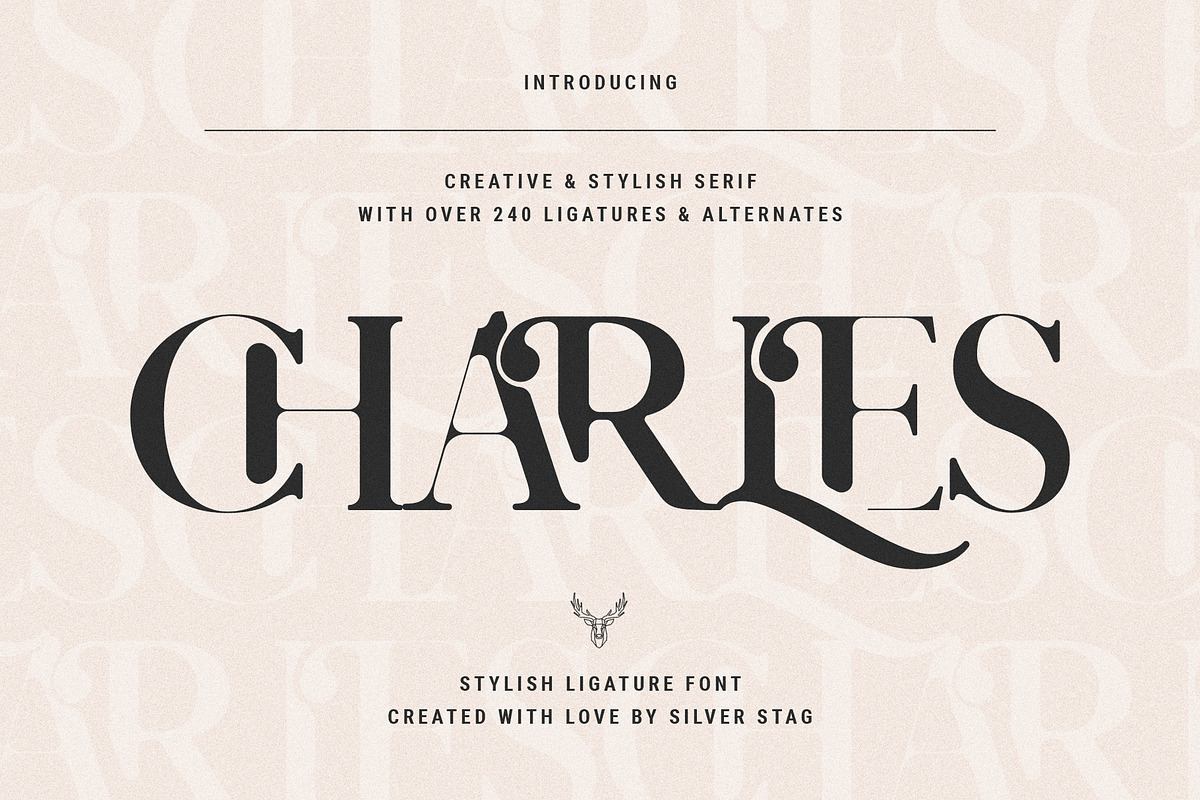
Charles - Chic Ligature Serif Font Free Download is an elegant and sophisticated serif typeface designed to bring a luxurious and modern feel to your designs. Featuring unique ligatures and high-contrast strokes, this font is perfect for fashion branding, editorial layouts, high-end marketing, and any design that needs a chic, refined aesthetic.
The stylish ligatures and classic serif structure make Charles a versatile font for both sophisticated and contemporary projects, adding a sense of class and elegance to logos, invitations, website headers, and more.